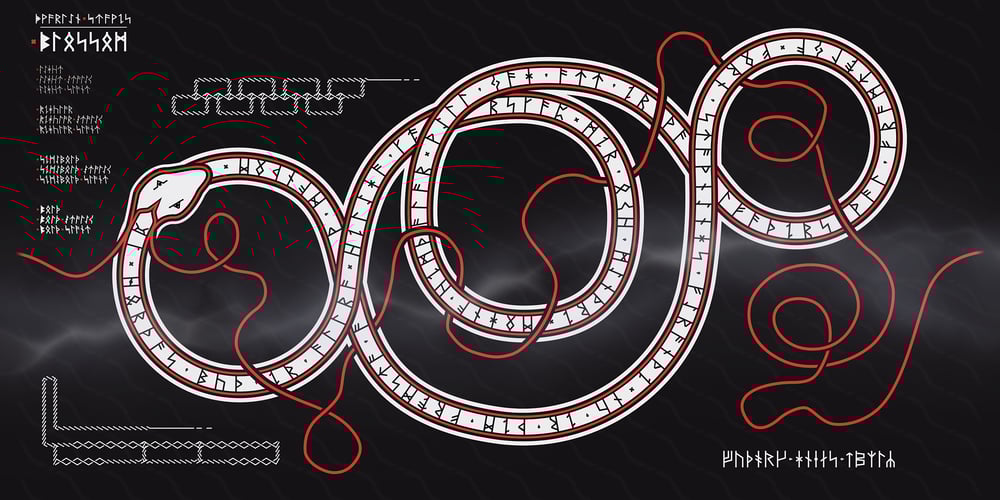
Dvarlin Staves Font Family was designed by Claes Dvärling and published by Sins. Dvarlin Staves contains 70 styles and family package options. Dvarlin Staves is a collection of 512 rune glyph’s divided into six font family’s. The three main font’s are Root, Caber and Bole, while Remnant, Branch and Blossom are taller versions of the main set. They all come in four weights: Light, Regular, Semibold and Bold. As well as a Italic and a Slant style for the purpose of adjusting letters on a curved line. It also features codex:437 glyph set and an extended array of letters and corner alternatives, including the default runic glyph’s. The collection stands at 72 styles that contains a total of 36 864 glyph’s. For extra supporters consider gifting some Staves away to a crafty friend.